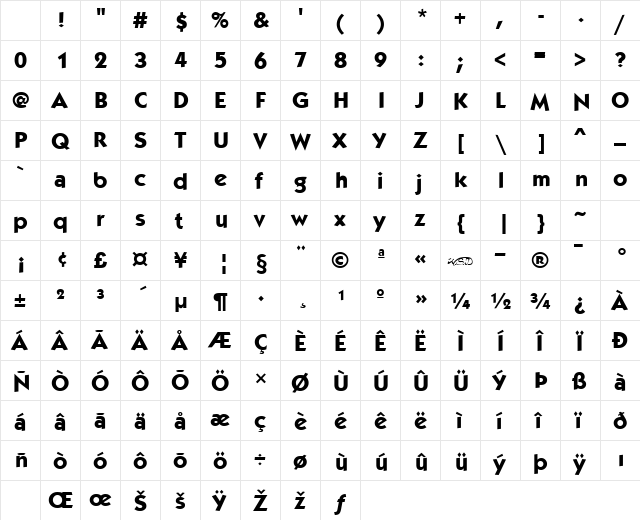
KabobExtrabold normal
Design Context for KabobExtrabold
KabobExtrabold is a composed and adaptable typeface that performs quietly and consistently across a wide range of design contexts. Its bold stroke weight gives it real presence on the page.